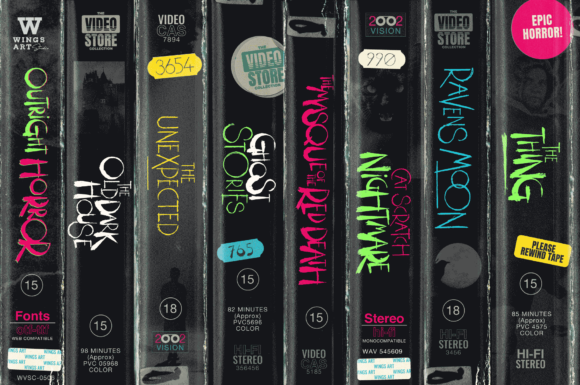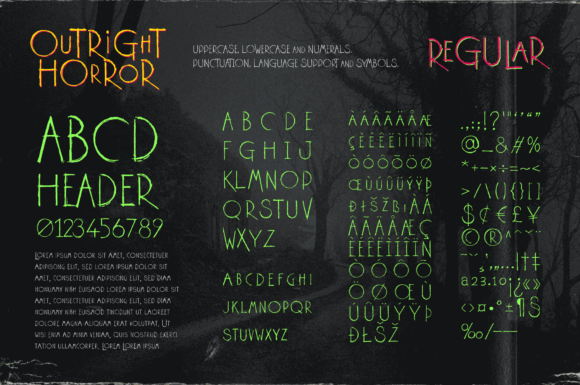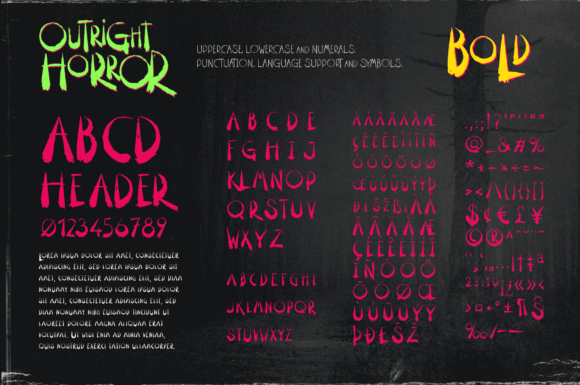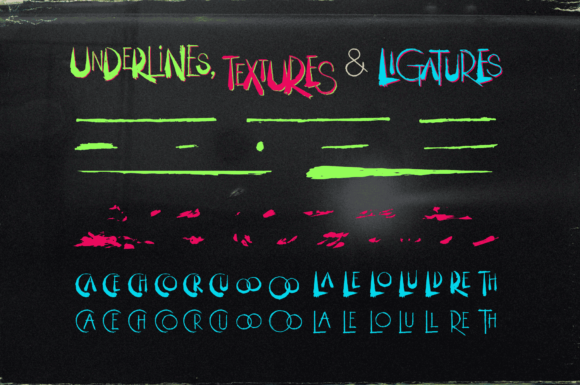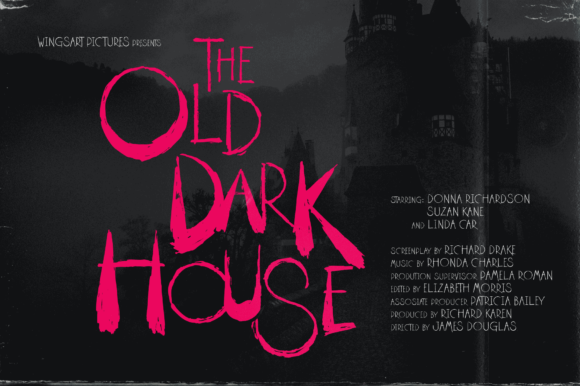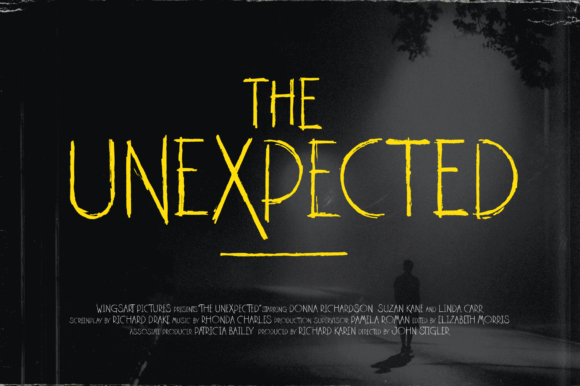
Introduction to Outright Horror Font
Have you ever found yourself in the middle of a late-night creative session, searching for the perfect font to add a touch of eeriness to your project? The clock strikes midnight, and your design sparks to life as you stumble upon a font that sends shivers down your spine – the Outright Horror Font.
This is exactly what happens when designers like you come across a high-quality design resource that elevates their creative project to the next level. With the Outright Horror Font, you can unleash your imagination and craft a spooky atmosphere that’s perfect for cartoon-related designs, children’s games, quotes, titles, brand names, book covers, posters, and more.
Key Features of Outright Horror Font
- Unique Gothic-inspired design for adding a spooky touch to creative projects.
- Perfect for adding a touch of horror or mystery to creative projects, such as book covers, posters, or even video game titles.
Honest Review: Outright Horror Font
I recently stumbled upon the Outright Horror Font while searching for a design resource for a creative project. I was immediately drawn to its eerie and spooky vibe, perfect for a Halloween-themed poster. As I delved deeper into the font, I was impressed by its high-quality design and versatility.
- Unique and creative design that sets it apart from other fonts
- High-quality design that makes it suitable for various creative projects
- May not be suitable for all design projects, especially those requiring a more formal or professional tone
- May require additional styling or pairing with other fonts to achieve the desired effect
Overall, I was impressed by the Outright Horror Font’s creative design and versatility. While it may not be suitable for all design projects, it’s an excellent choice for designers looking for a unique and spooky font for their creative project. I would definitely recommend it as a design resource, especially for those working on a Halloween-themed project.
How to Use Outright Horror Font
The Outright Horror Font is a free download design resource perfect for creative projects that require a bold, spooky, or eerie atmosphere. This high-quality font features a transparent background, making it easy to integrate into various design elements.
Tips for Getting the Most Out of Outright Horror Font
To get the most out of the Outright Horror Font, experiment with different font sizes, colors, and combinations to achieve the desired effect. You can also pair it with other design elements, such as images or graphics, to create a cohesive and eerie atmosphere.
The Outright Horror Font is ideal for creative projects that require a spooky or eerie atmosphere, such as:
- Horror movie posters
- Spooky invitations or greeting cards
- Haunted house or theme park promotions
- Creepy social media graphics or animations